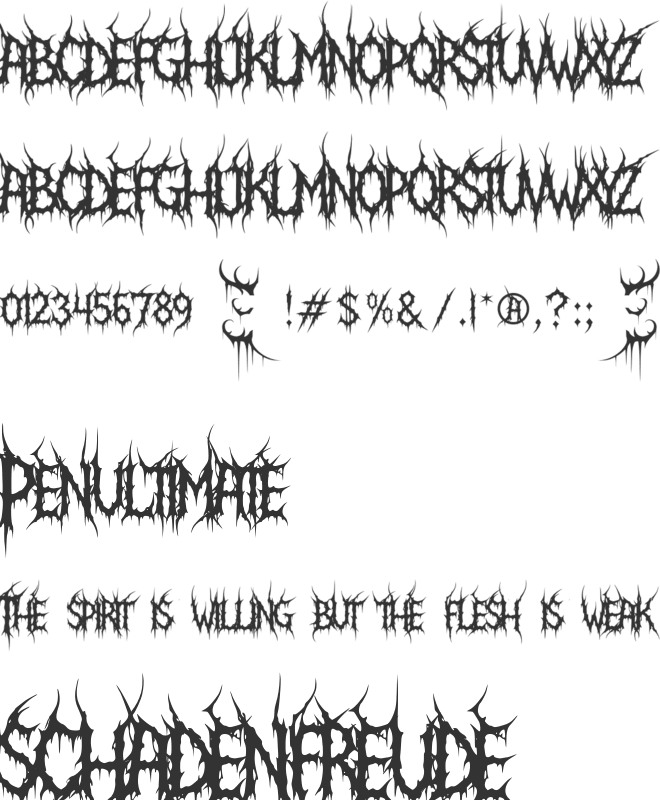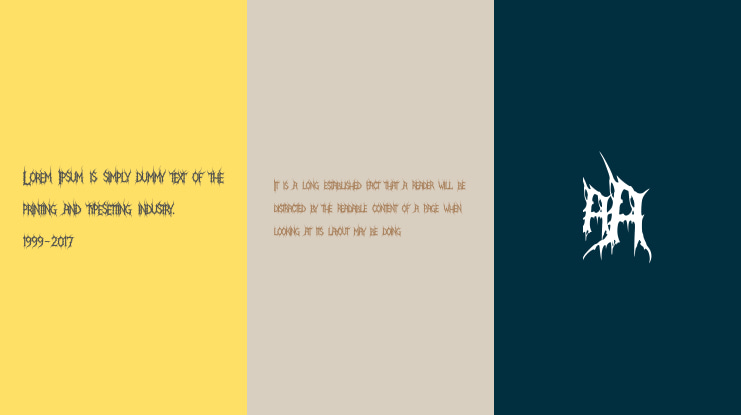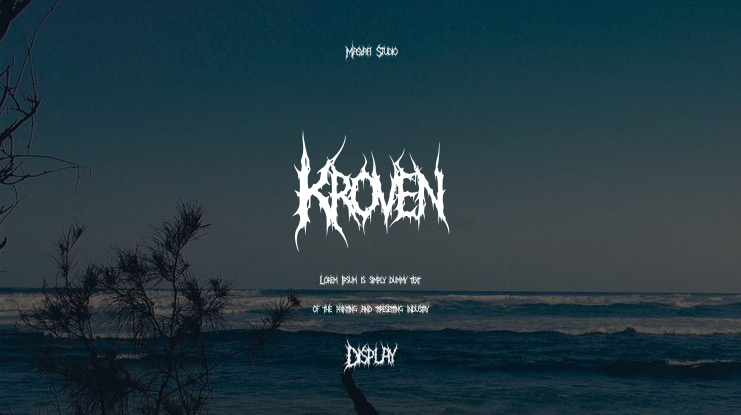
DEATH METAL FONT
This font is created for dark, aggressive, extreme, and heavy visual designs. It is suitable for death metal artwork, band logos, album covers, posters, merchandise, apparel, branding, and other creative projects.